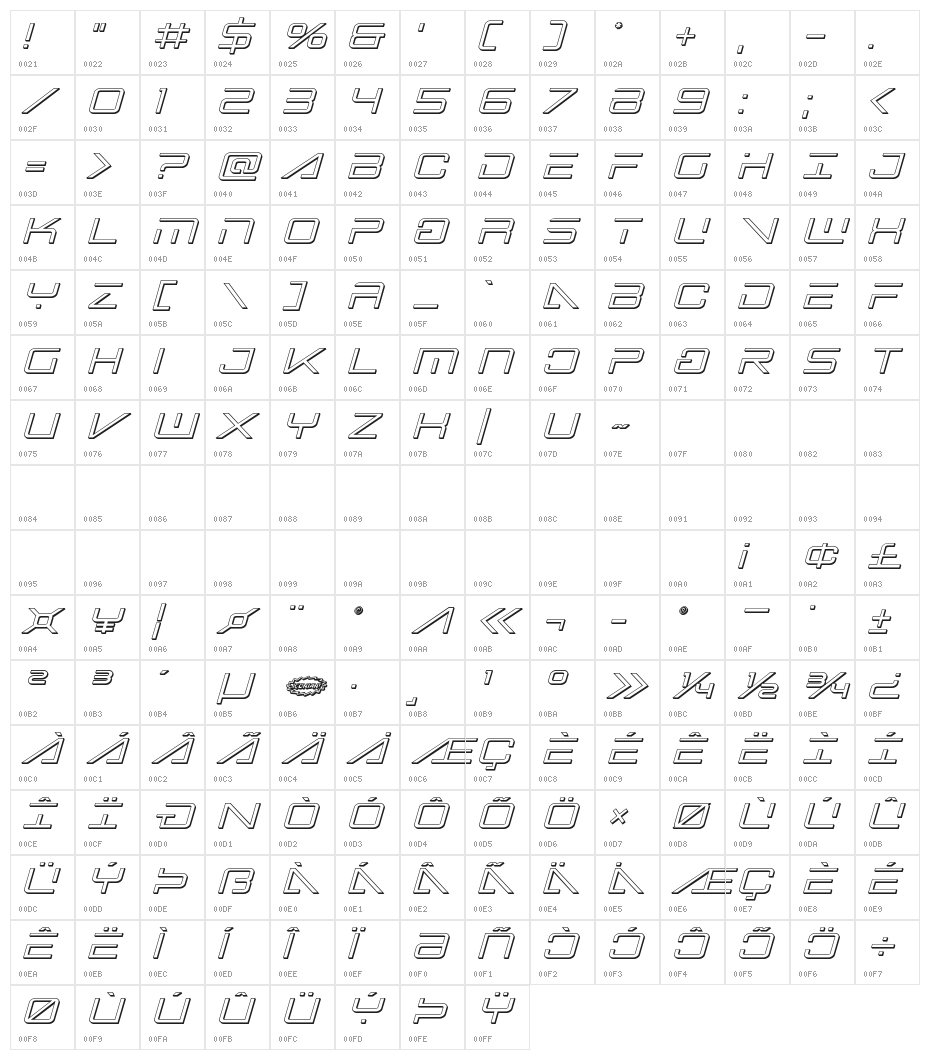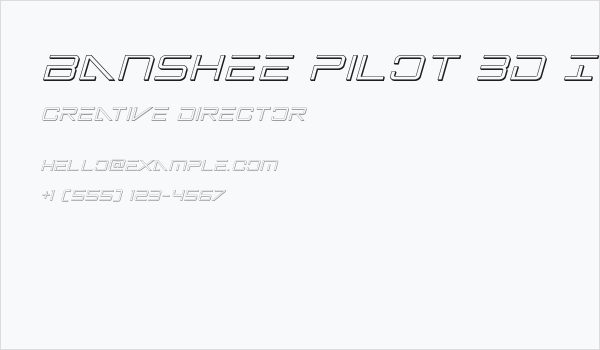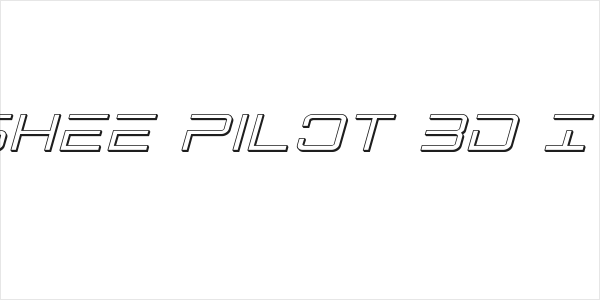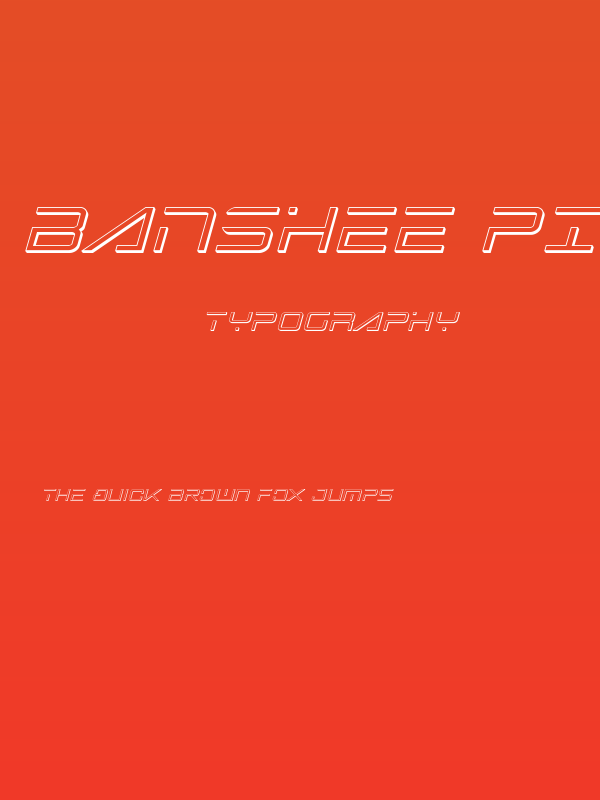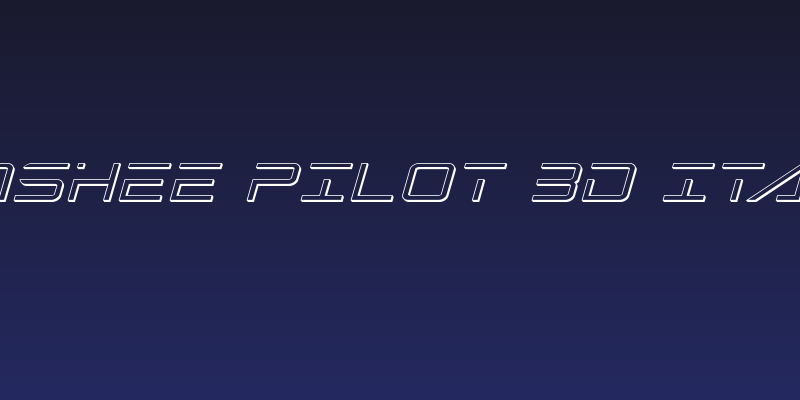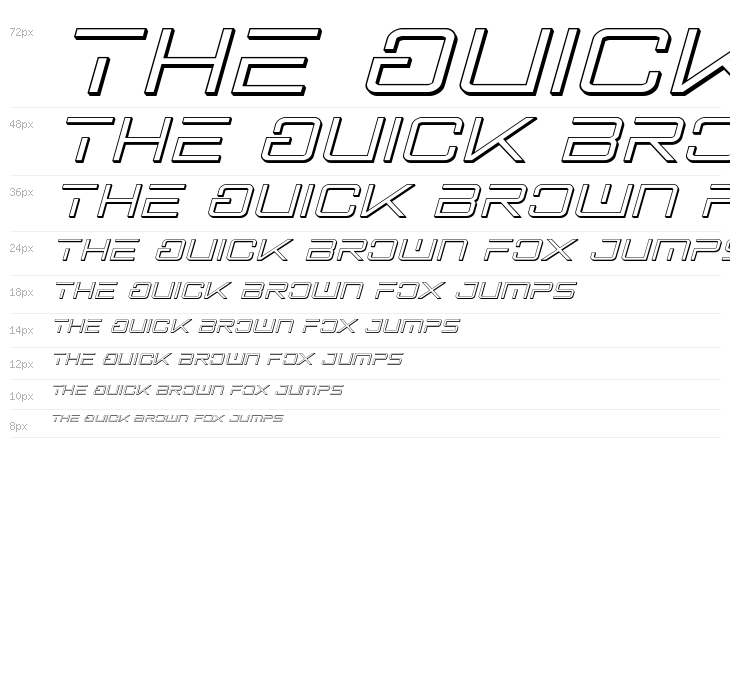
Banshee Pilot 3D Italic Font
Banshee Pilot 3D Italic Description
This font features a futuristic and angular design, characterized by its 3D italic style. The letters are outlined, giving them a hollow appearance, which enhances the three-dimensional effect. The angular cuts and sharp edges provide a dynamic and modern look, making it suitable for projects that require a tech-savvy or avant-garde aesthetic. The uppercase and lowercase letters maintain a consistent style, with numbers and special characters following the same design principles. The font's unique structure makes it stand out, ideal for creative and innovative designs.
| Proposed Projects | Ideal for sci-fi movie posters, tech company logos, video game titles, and futuristic branding. |